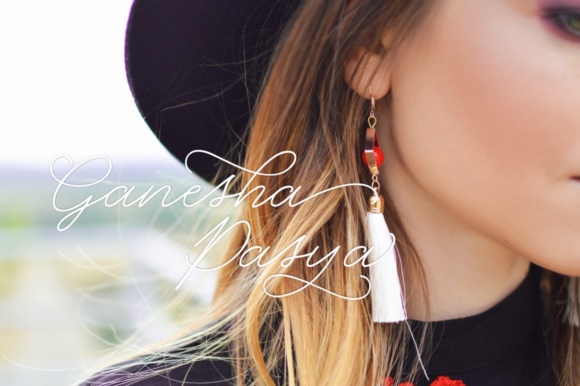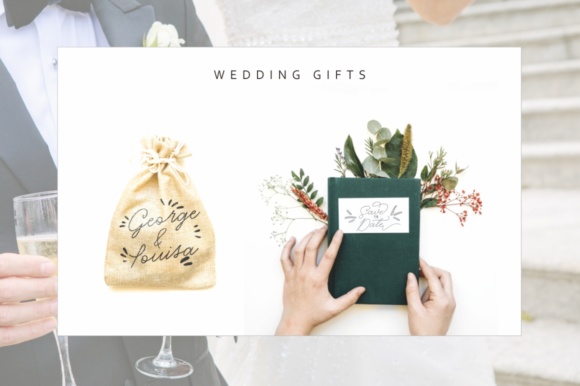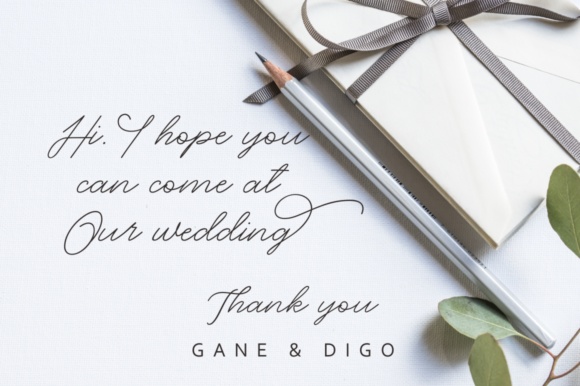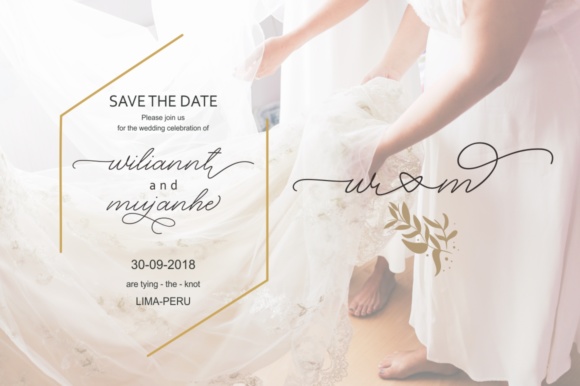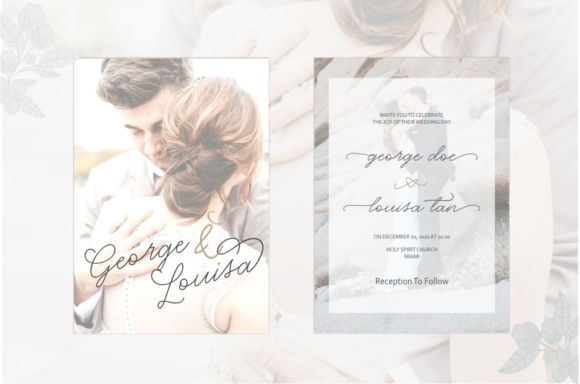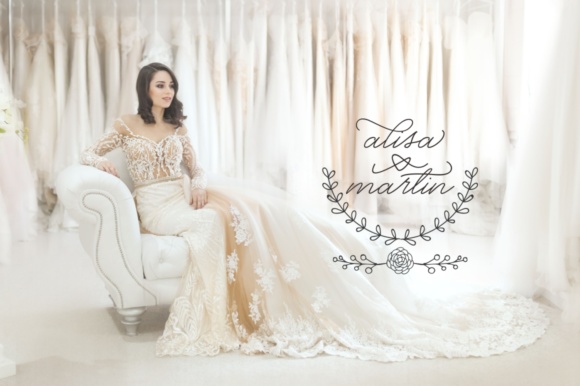
Eisha Script Font: Elevate Your Designs with Elegance and Sophistication
In the world of typography, a well-crafted font can make all the difference in elevating your designs from ordinary to extraordinary. If you’re a designer, crafty DIY enthusiast, or simply someone who appreciates beautiful lettering, you’ll love the Eisha Script Font. This modern, handwritten calligraphic font is designed to bring a touch of sophistication and elegance to your projects, making it perfect for a wide range of applications.
What is Eisha Script Font?
Eisha is a carefully crafted script font that boasts a smooth, flowing texture, reminiscent of traditional calligraphy. Its modern, handwritten feel makes it an excellent choice for designs that require a personal touch. Whether you’re creating branding materials, wedding invitations, diaries, or even custom products like cups and mugs, Eisha is sure to impress.
Key Features of Eisha Script Font
- Modern and Sophisticated: Eisha’s sleek, contemporary design ensures that your projects look fresh and up-to-date.
- Smooth Texture: The font’s smooth texture makes it ideal for various printing techniques, ensuring that your designs look professional and polished.
- Handwritten Calligraphic Style: Eisha’s handwritten feel adds a personal touch to your designs, making them more approachable and engaging.
- Versatile: From branding and wedding invitations to diaries and greeting cards, Eisha is suitable for a wide range of applications.
As a designer or crafter, you’re constantly on the lookout for high-quality fonts that can help you create stunning projects. Eisha Script Font is an excellent addition to your font library, offering a unique blend of style, sophistication, and versatility. With Eisha, you can:
- Create beautiful branding materials, such as logos, business cards, and letterheads.
- Design elegant wedding invitations, save-the-date cards, and other wedding-related stationery.
- Develop eye-catching packaging for your products, including labels, tags, and boxes.
- Make custom products, such as cups, mugs, and greeting cards, that are sure to impress.
Tips for Using Eisha Script Font
To get the most out of Eisha Script Font, here are a few tips to keep in mind:
- Pair with contrasting fonts: Combine Eisha with a clean, sans-serif font to create visual interest and hierarchy in your designs.
- Experiment with colors: Eisha looks stunning in a range of colors, from classic black and white to bold brights and pastels.
- Pay attention to spacing: Make sure to adjust the spacing between letters and words to create a smooth, flowing effect.
In conclusion, the Eisha Script Font is an exceptional addition to any designer’s or crafter’s toolkit. Its modern, handwritten calligraphic style, smooth texture, and versatility make it perfect for a wide range of applications. Whether you’re creating branding materials, wedding invitations, or custom products, Eisha is sure to elevate your designs and leave a lasting impression. So why wait? Get creative with Eisha Script Font today and discover a world of elegance and sophistication!